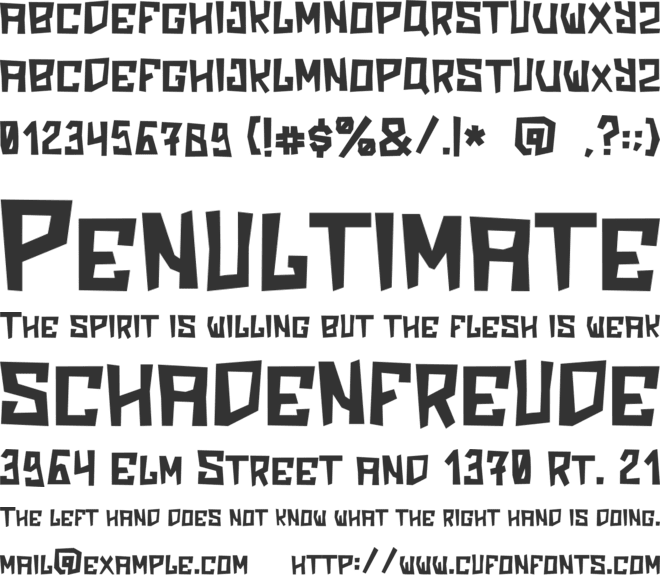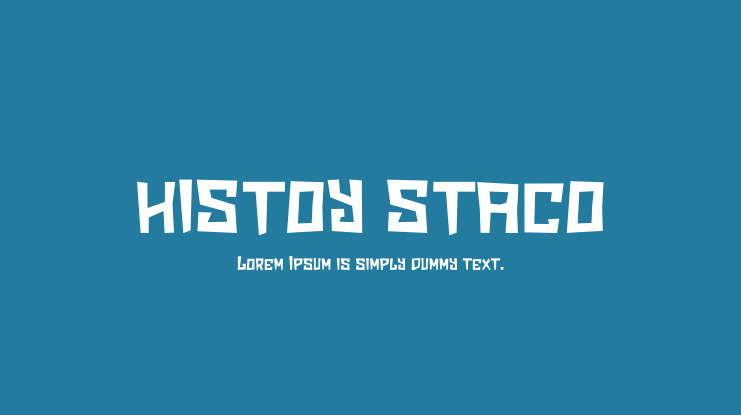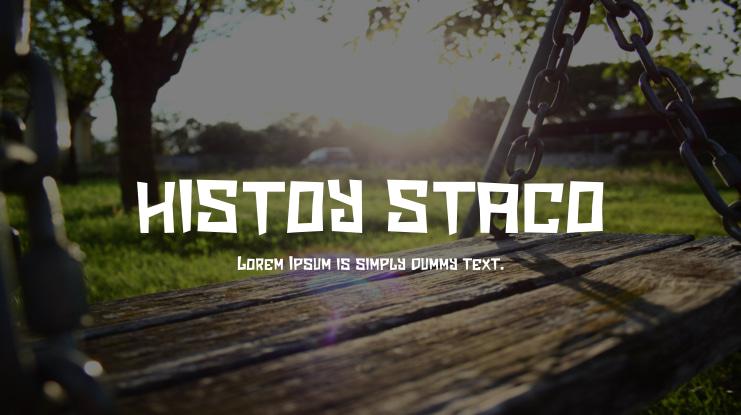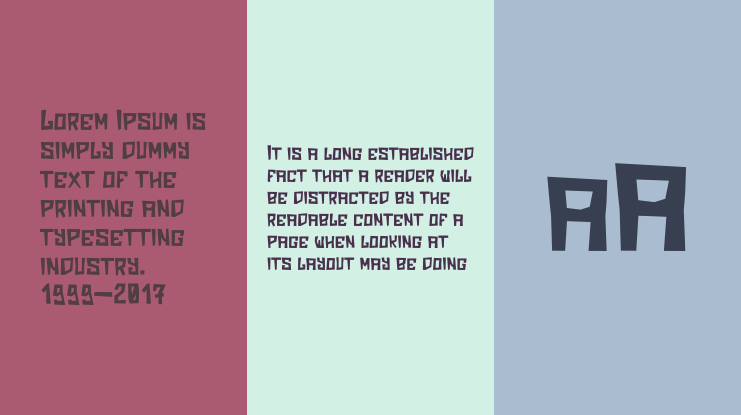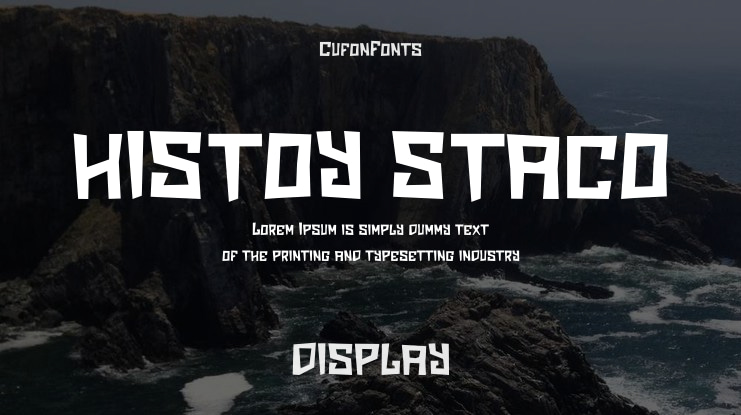
HISTOY STACO Font
Your imagination is the only limit with this font, perfectly suited for diverse projects such as the ever-evolving world of robotics, awe-inspiring virtual reality experiences, and the exploration of the mysterious realm of outer space. Even in sports, this font provides a dynamic and modern look, ensuring your message stands out to your audience. This collaboration has created a font that not only hints at the future but also immerses you in it.
**Features:**
- Standard characters A-Z and a-z - Numerical and functional